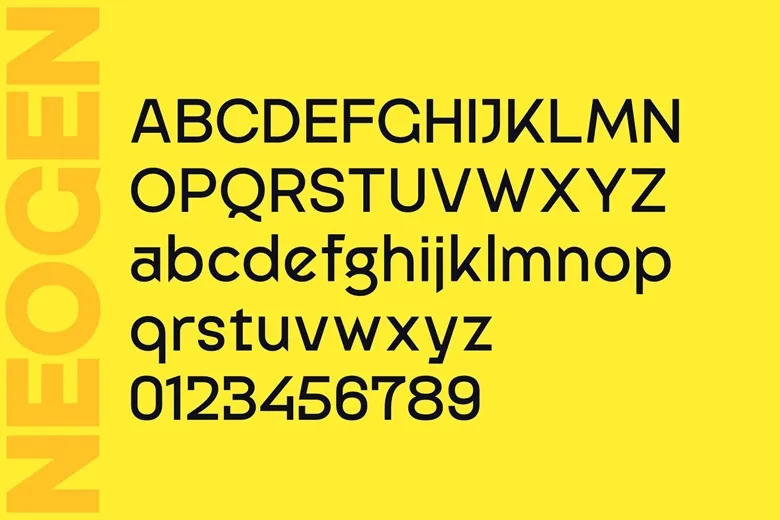
Neogen Font Free Download
Neogen Font is a bold and futuristic display typeface featuring sharp angular cuts, geometric precision, and a strong cyberpunk style. Its modern tech driven appearance gives every design a sleek, powerful, and cutting edge look.
This font is a great choice for sci fi movie titles, gaming interfaces, technology logos, futuristic, digital art and creative projects that need an innovative and high tech visual identity.
DesignerSign Studio